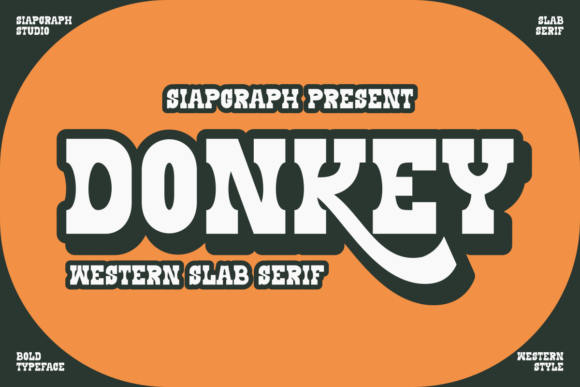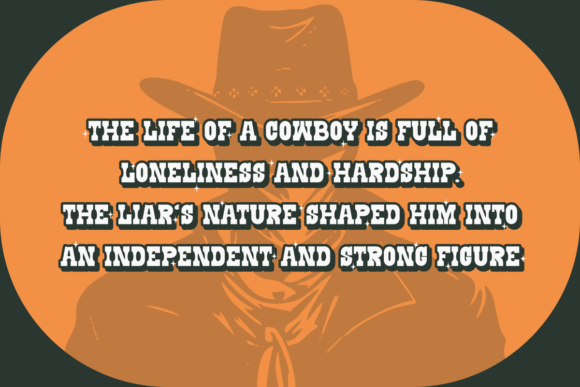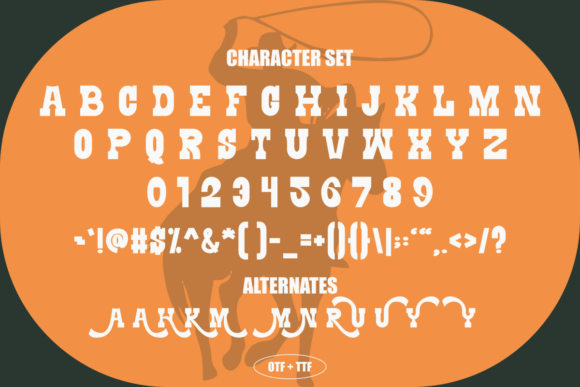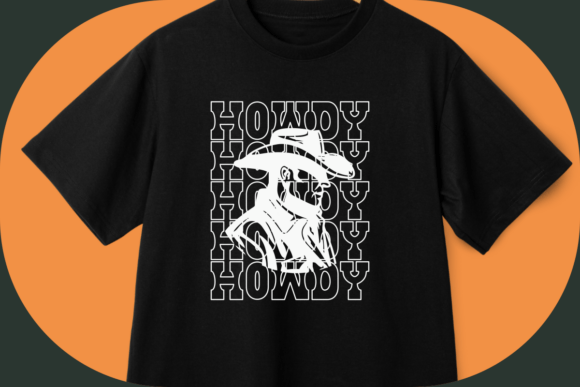
Donkey Font: A Rustic Western Serif for Bold, Vintage Designs & Branding
About the Donkey Font
Crafted with precision, the Donkey Font is ready to bring your ideas to life. Donkey is a bold and rugged Western-style slab serif font perfect for crafting eye-catching designs on tshirts. With its thick strokes and distinctive serifs, this font is sure to make a statement. Ideal for vintage-inspired designs, western-themed clothing, and any project that needs a touch of rustic charm.
Donkey Font excels in headline applications, short impactful phrases, and logo design. Its strong visual presence makes it ideal for posters, branding materials for rugged or outdoorsy brands, and packaging that requires a bold statement. However, its thick strokes and large x-height render it unsuitable for body text or long paragraphs; readability suffers at smaller sizes. Avoid using it in UI contexts or for anything requiring high levels of legibility.
Pairing Donkey Font effectively requires considering its weighty personality. A clean sans-serif like Futura or a geometric sans-serif like Bebas Neue provides a striking contrast, creating a modern yet classic feel. For a more vintage aesthetic, consider pairing it with a classic serif like Garamond or a slightly distressed script font.
The overall personality of Donkey Font is bold, rugged, and undeniably confident. It projects a sense of strength and authenticity, making it perfect for brands that wish to communicate a sense of heritage, reliability, or adventurous spirit.